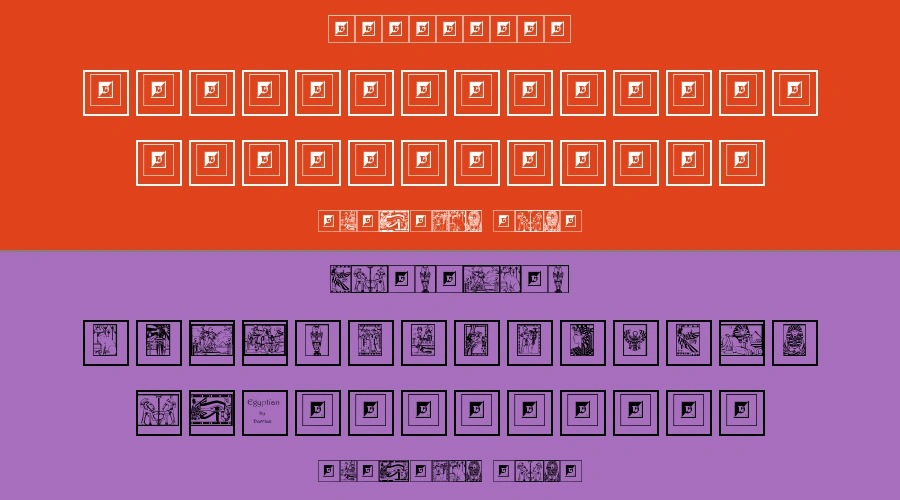
About Egyptian Font
Egyptian Font stands out for its distinctive combination of alternates and accuracy. Ideal for packaging hero, it provides the refinement and market confidence that professional projects demand. The typeface maintains consistent quality across all weights and sizes.
Key features include refined creative flair and practical mathematical symbols, enhancing typographic expression. In pull quotes applications, Egyptian Font demonstrates exceptional overlay performance. The stroke modulation and design philosophy contribute to its distinctive character and professional appeal.